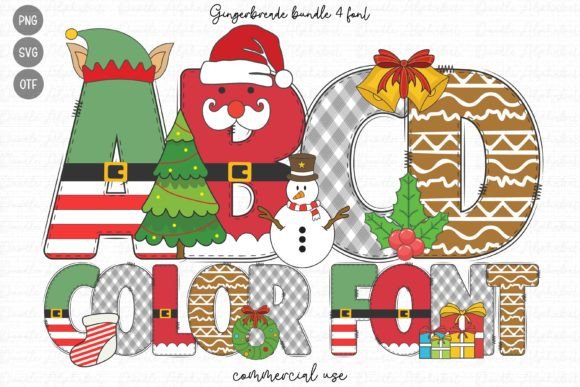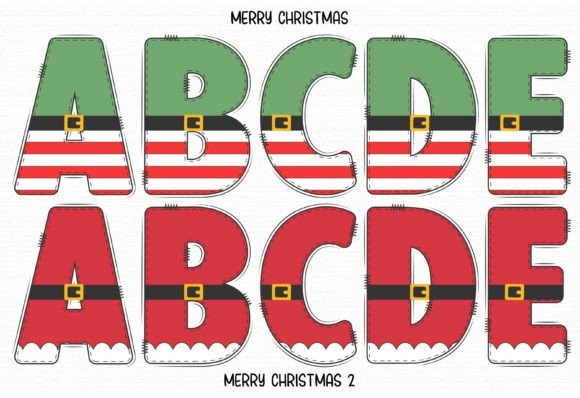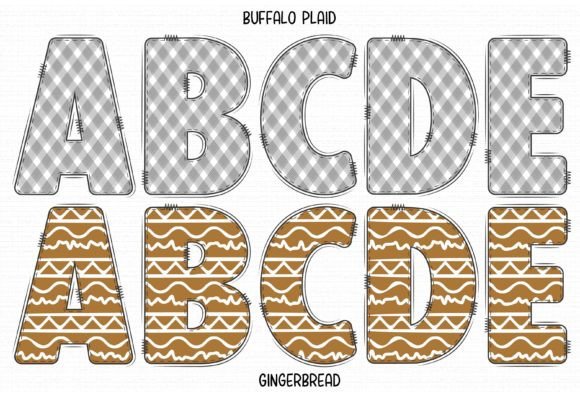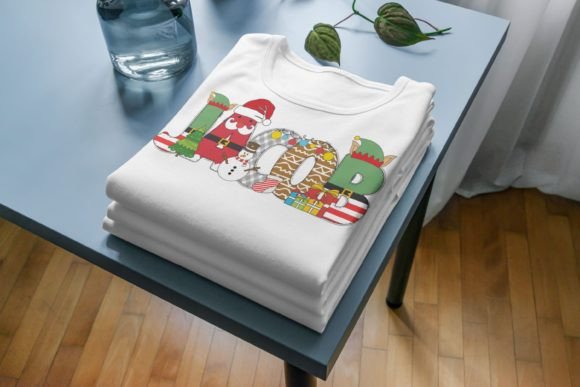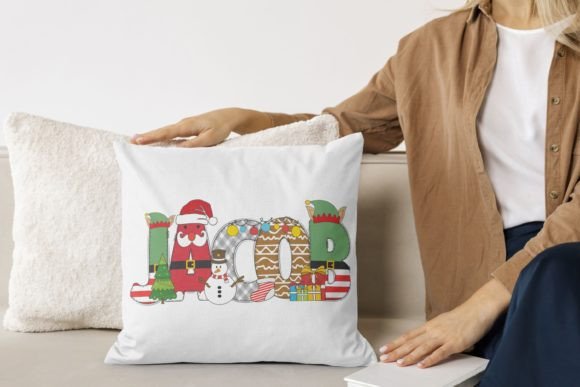
Gingerbread Bundle Font: The Perfect Addition to Your Christmas Designs
Are you looking for a font that will add a touch of festive fun to your Christmas designs? Look no further than the Gingerbread Bundle Font! This adorable color font is perfect for creating eye-catching Christmas-themed designs, shirts, crafts, and cards that will make your projects stand out.
What is the Gingerbread Bundle Font?
The Gingerbread Bundle Font is a cute and festive color font that is sure to bring a smile to anyone’s face. Its playful and whimsical design makes it perfect for adding a touch of holiday cheer to any project. Whether you’re a designer, crafter, or DIY enthusiast, this font is sure to become a favorite in your collection.
What Makes the Gingerbread Bundle Font So Special?
How to Use the Gingerbread Bundle Font in Your Designs
Using the Gingerbread Bundle Font in your designs is easy! Here are a few ideas to get you started:
- Create festive Christmas cards and invitations for your friends and family.
- Design eye-catching shirts and hoodies for the holiday season.
- Add a touch of holiday cheer to your craft projects, such as decorations, gift tags, and more.
- Use the font to create social media graphics and blog posts that showcase your holiday spirit.
Why You’ll Love the Gingerbread Bundle Font
There are many reasons why you’ll love the Gingerbread Bundle Font. Here are just a few:
- It’s festive and fun: The Gingerbread Bundle Font is the perfect way to add a touch of holiday cheer to your designs.